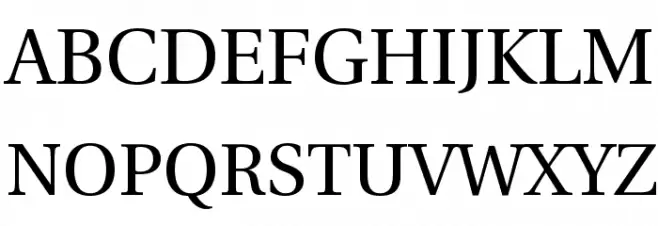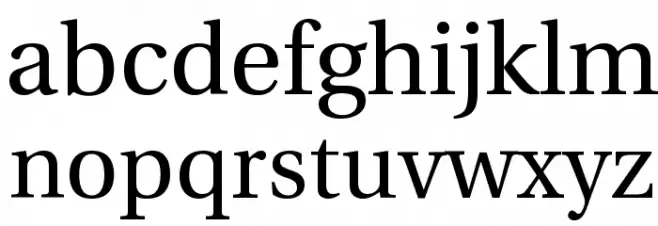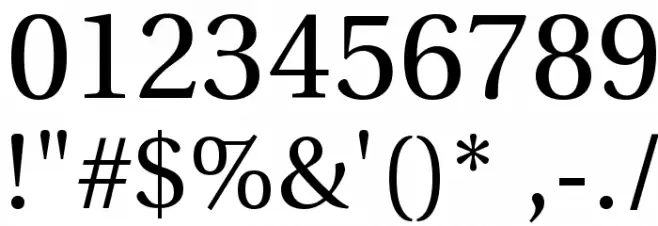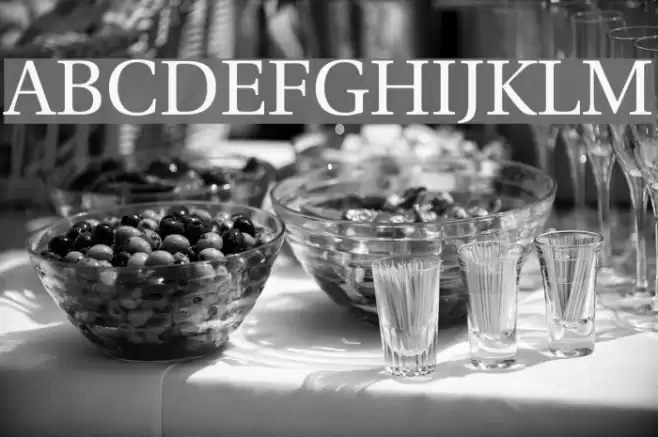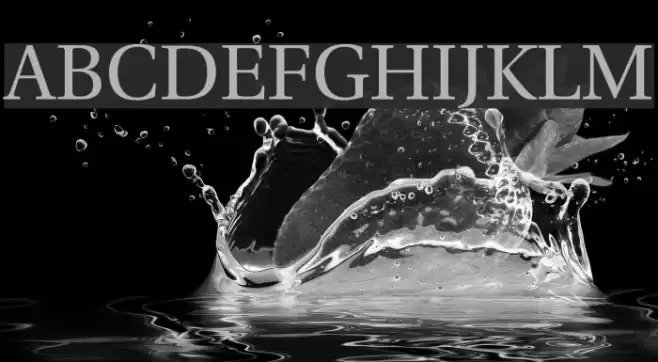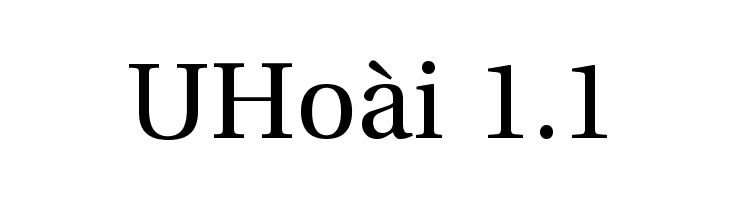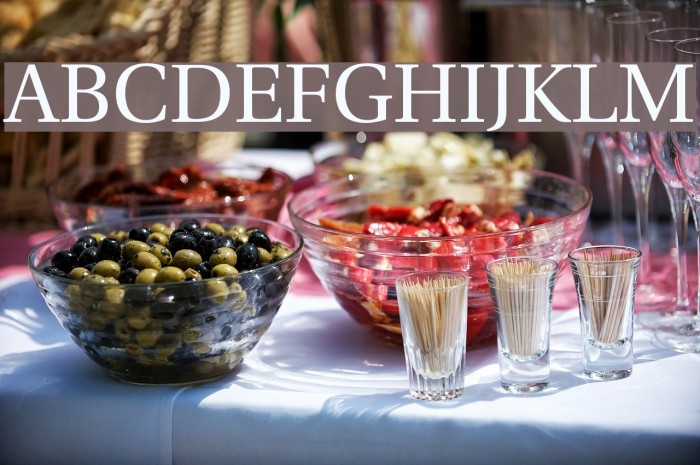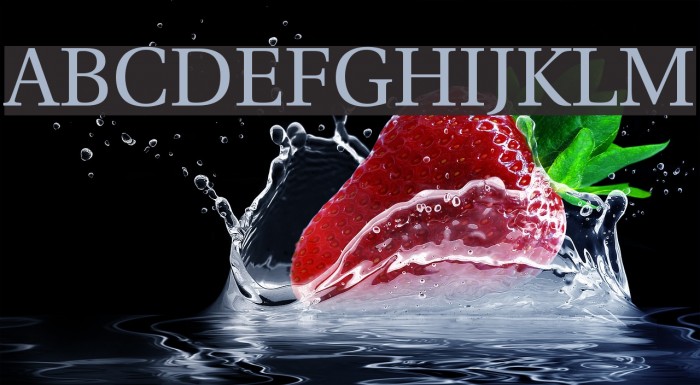
UHoài 1.1
This serif font features a classic and elegant design, characterized by its distinct contrast between thick and thin strokes. The uppercase letters exhibit a traditional serif style with sharp, clean lines and well-defined curves, providing a sense of formality and sophistication. The lowercase letters maintain a consistent style, with gentle curves and a balanced appearance that enhances readability. The numerals are proportionate and align well with the overall aesthetic, making them suitable for both text and display purposes. The special characters are thoughtfully designed, ensuring they blend seamlessly with the rest of the font. This font is versatile and can be used in a variety of contexts, from formal documents to stylish branding materials.
A classic serif font with elegant contrast and refined style.
- Proposed Projects: Ideal for editorial design, book covers, formal invitations, and branding projects that require a touch of elegance.
- Category: Serif
- Contrast: High
- Overall Style: Classic